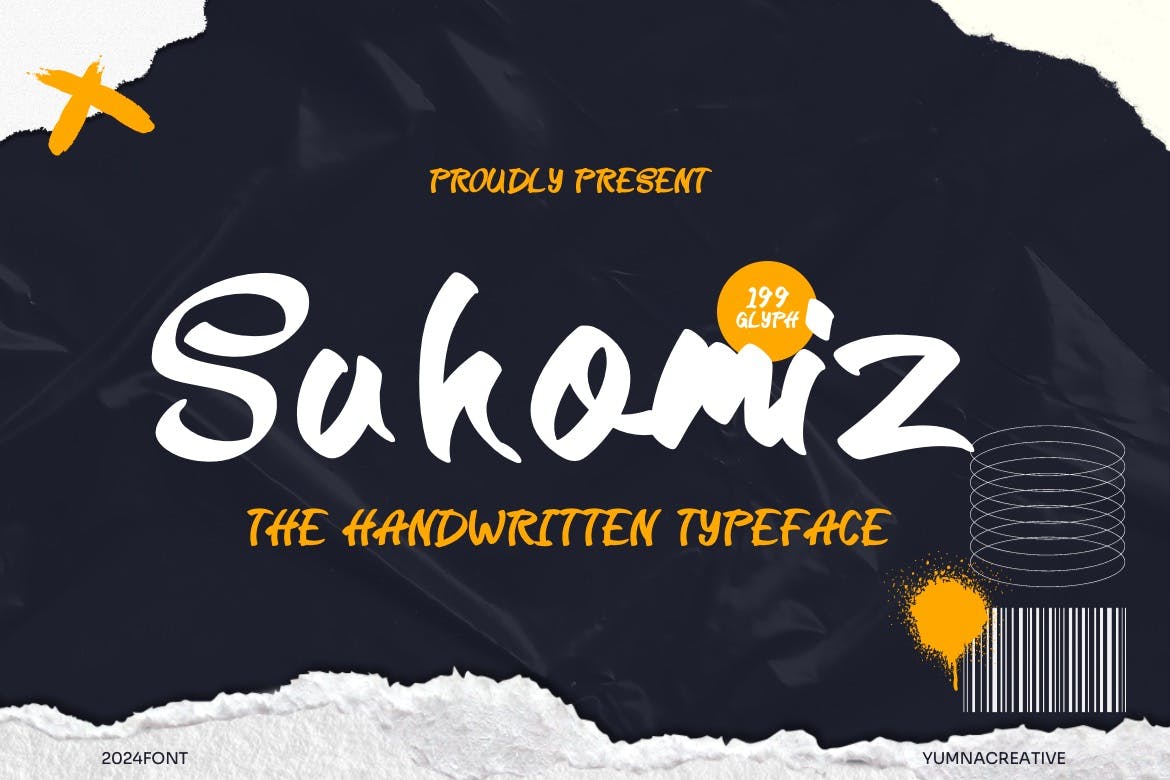
Sukomiz – Handwritten Font
Sukomiz is a handwritten font designed to bring a personal touch to any project. With its unique style and large optimum size, it is perfect for display and poster use, making it ideal for those looking to add a creative flair to their designs. The font features normal spacing, ensuring readability while maintaining its artistic charm.